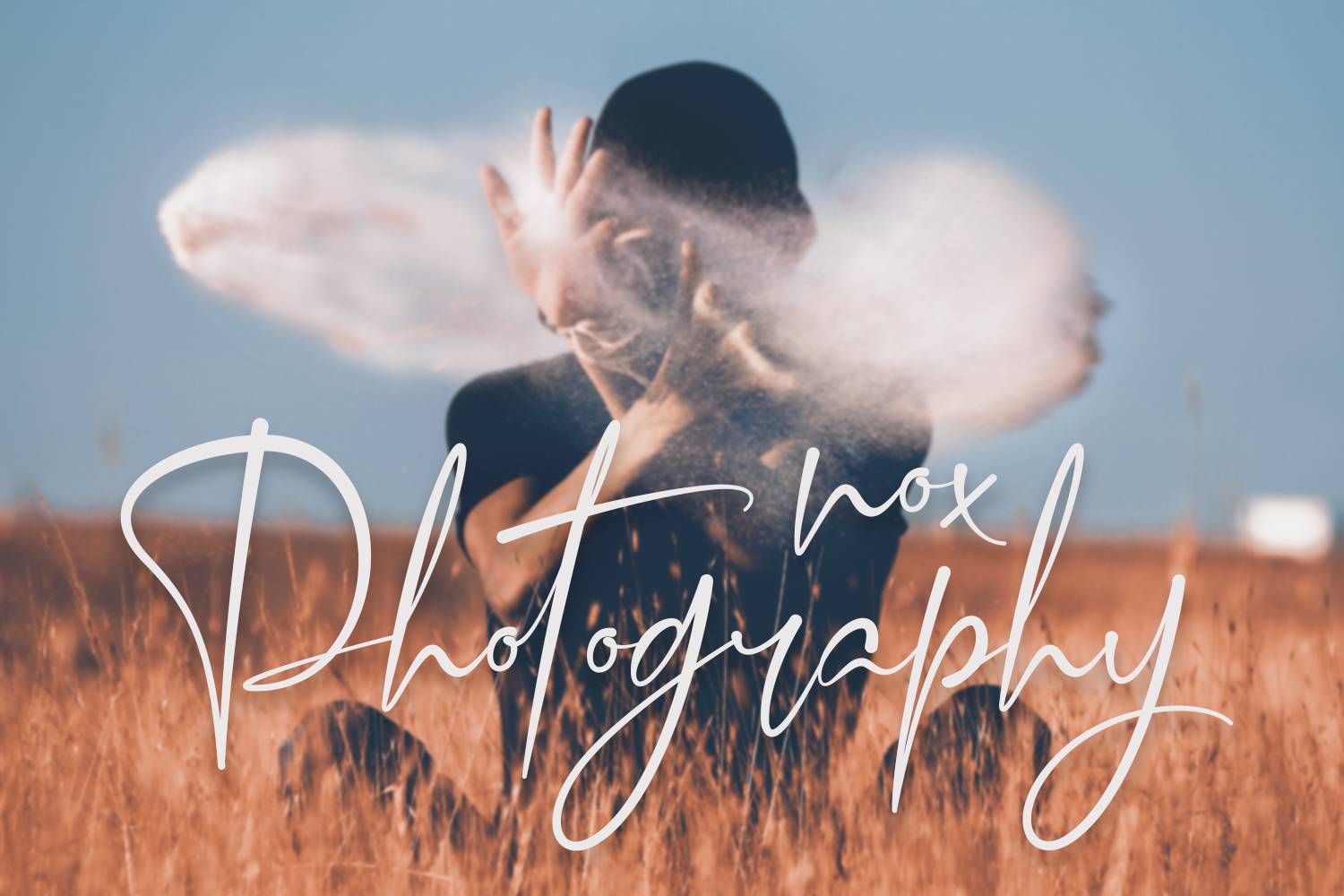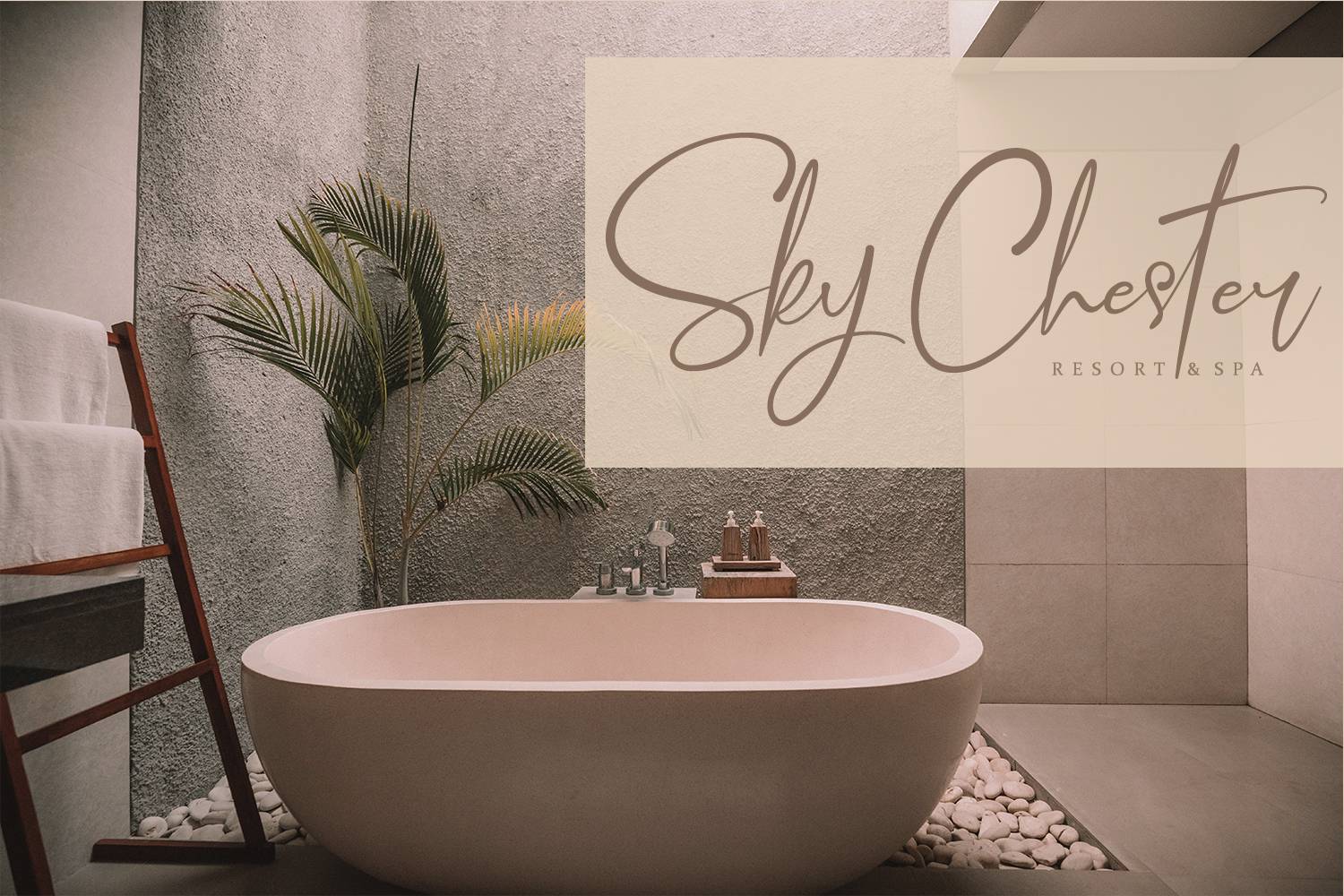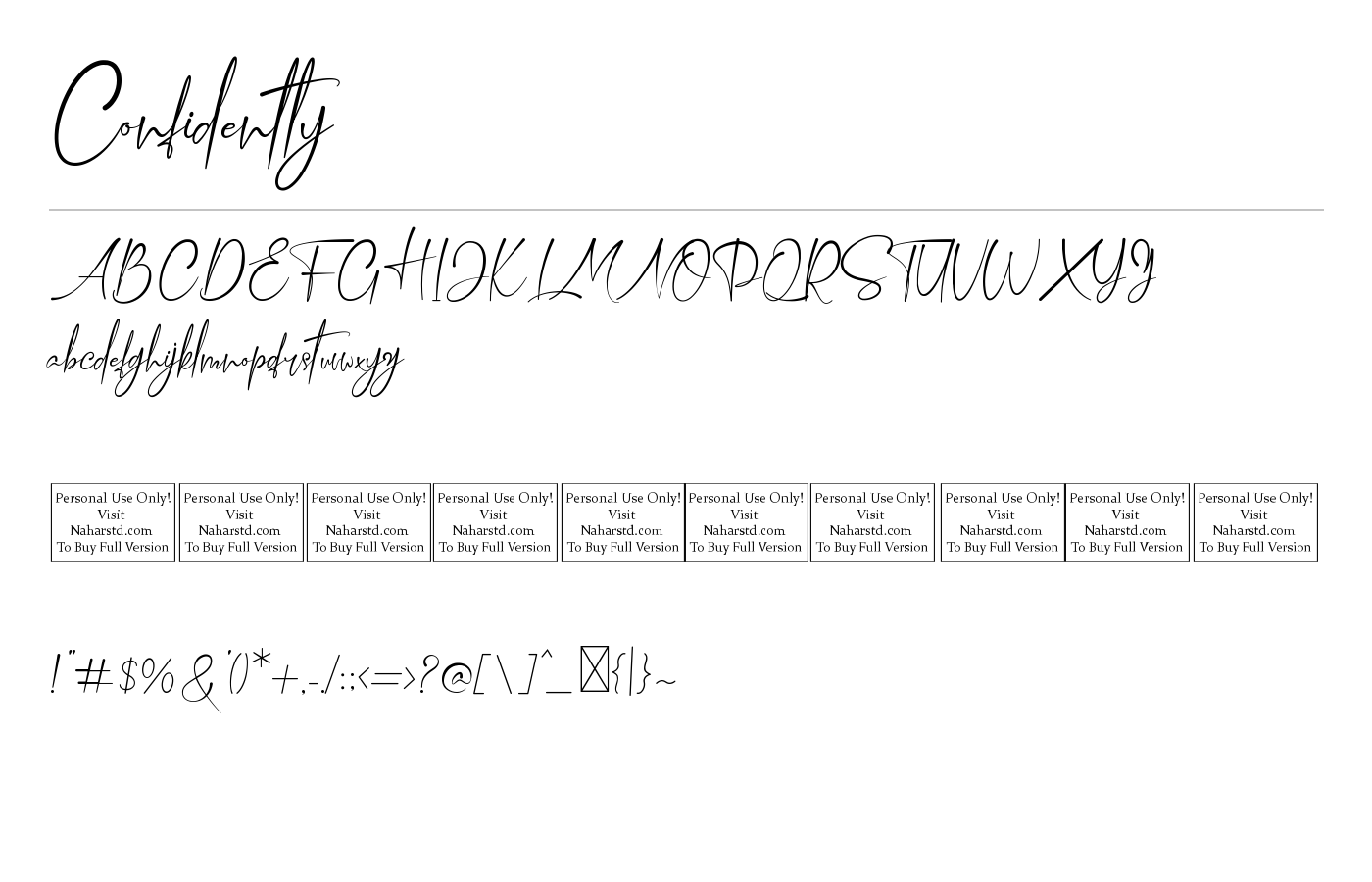
Confidently is an elegant, handwritten script font that features slender, flowing strokes and a delicate, airy feel. Its tall, narrow letterforms with varying stroke thicknesses give it a modern yet personal touch, making it perfect for stylish branding, invitations, and expressive headlines where a graceful, sophisticated vibe is desired. This font works beautifully in designs that seek to convey confidence and individuality through a refined, handwritten aesthetic.
Confidently Font
About Confidently Font